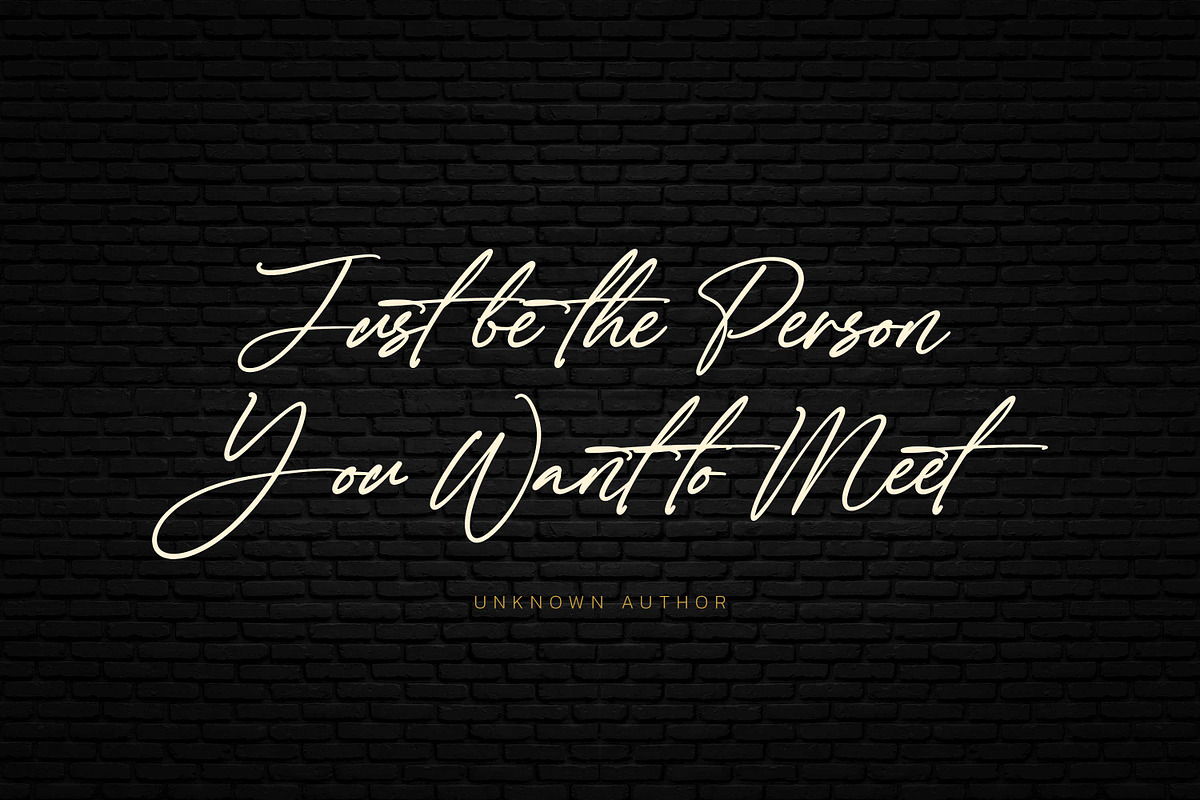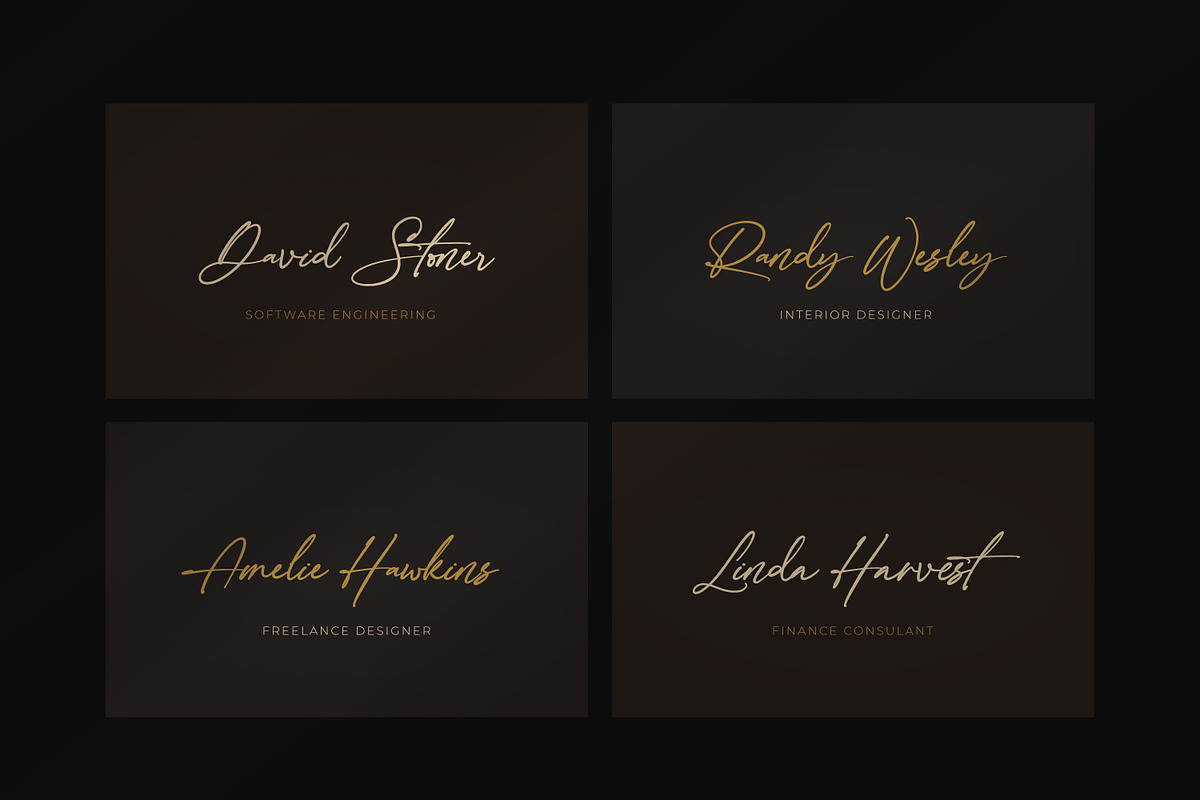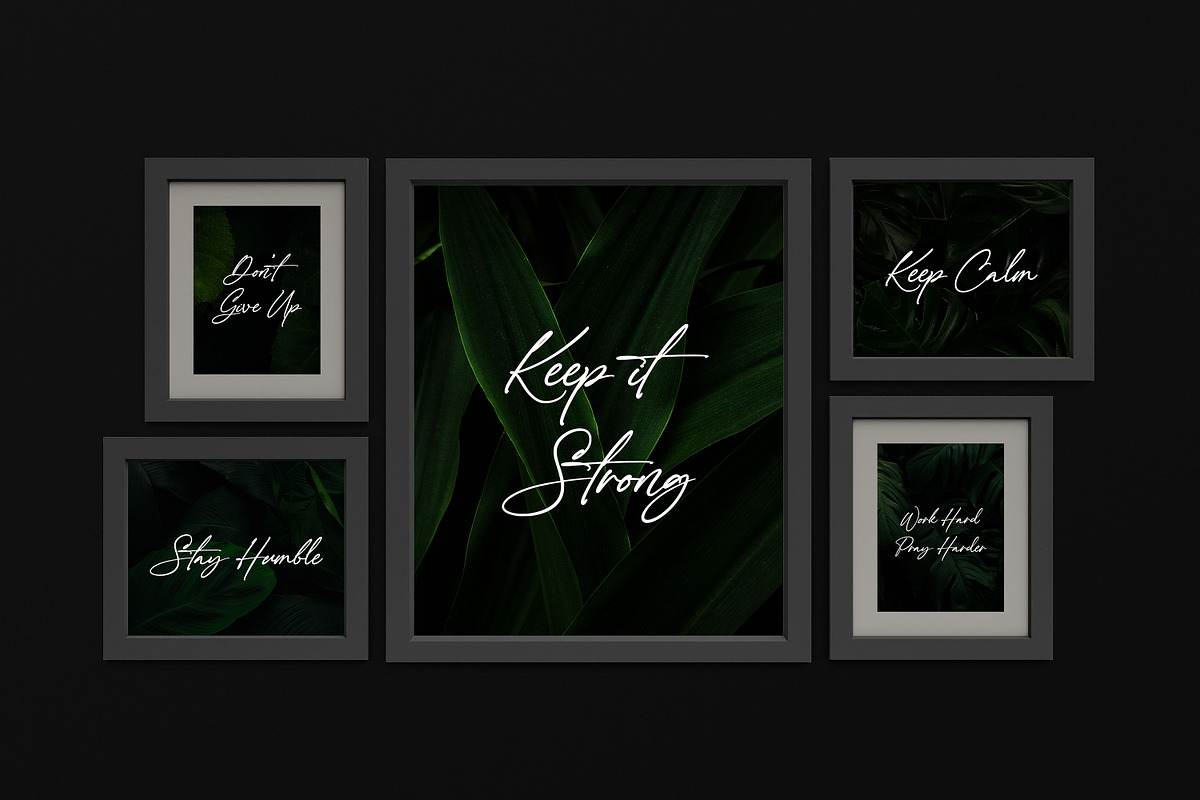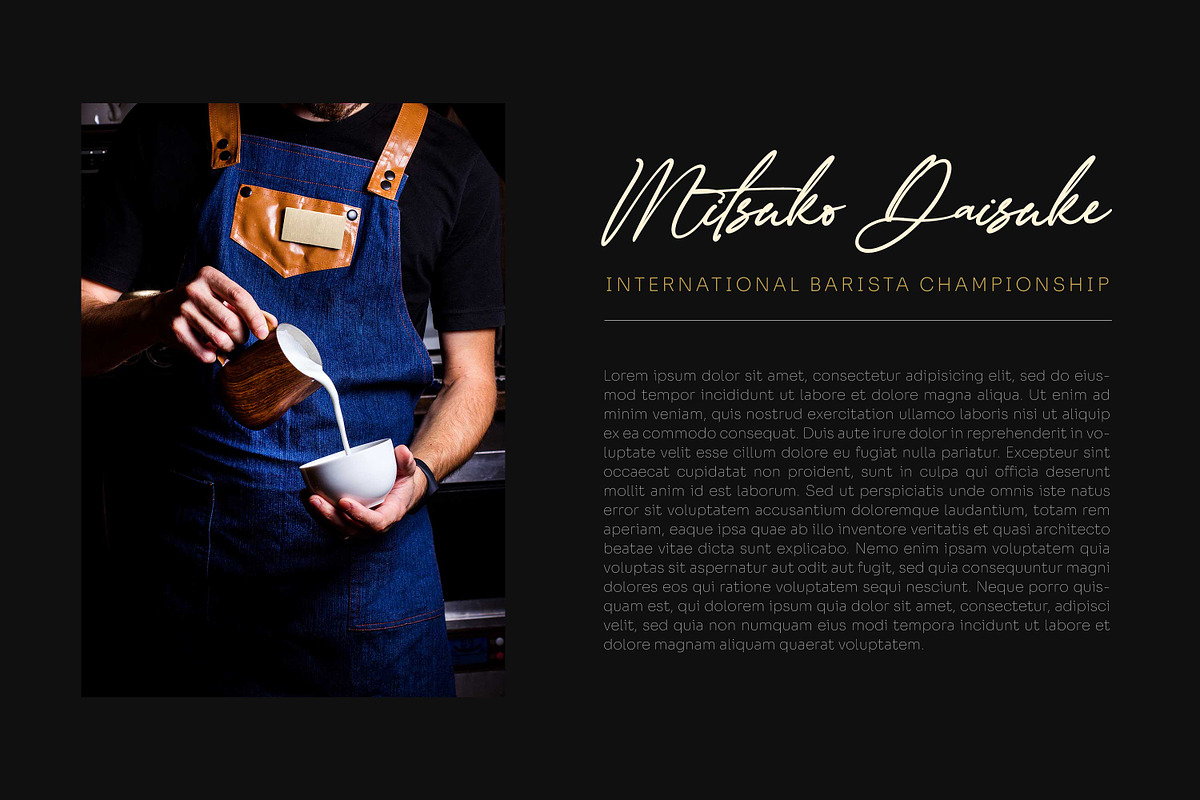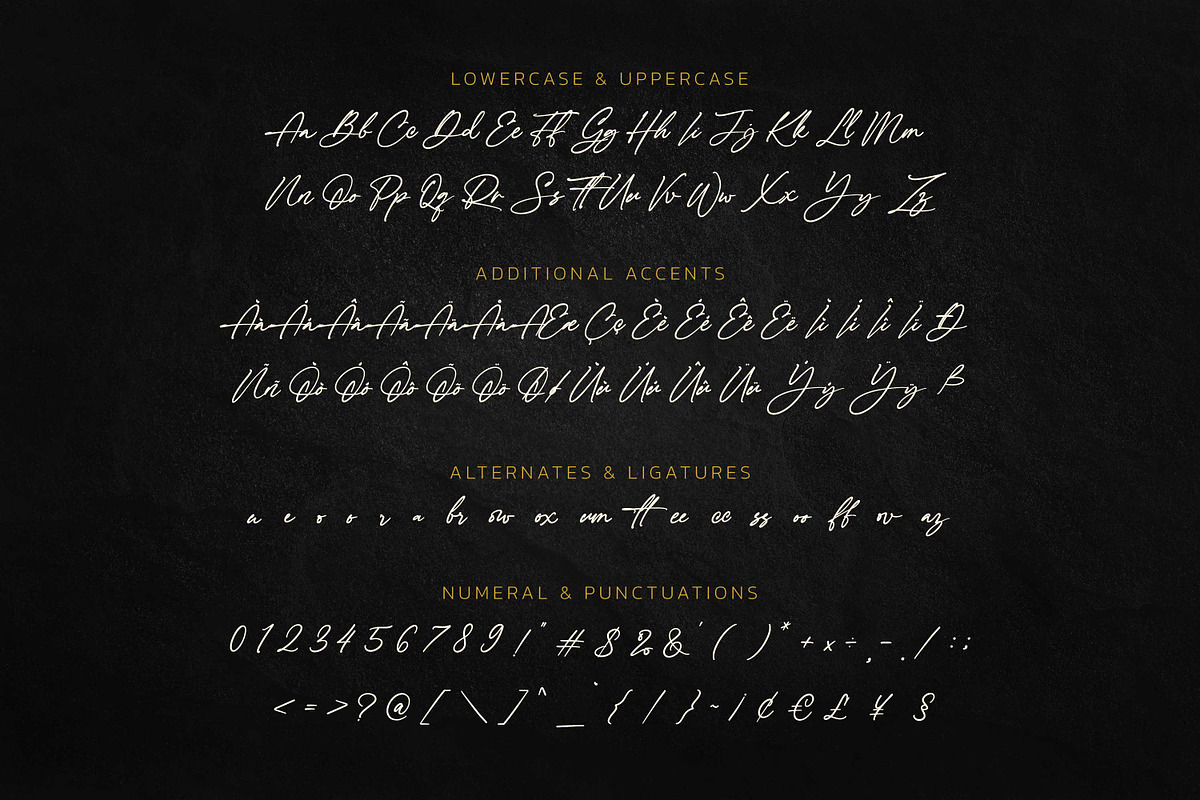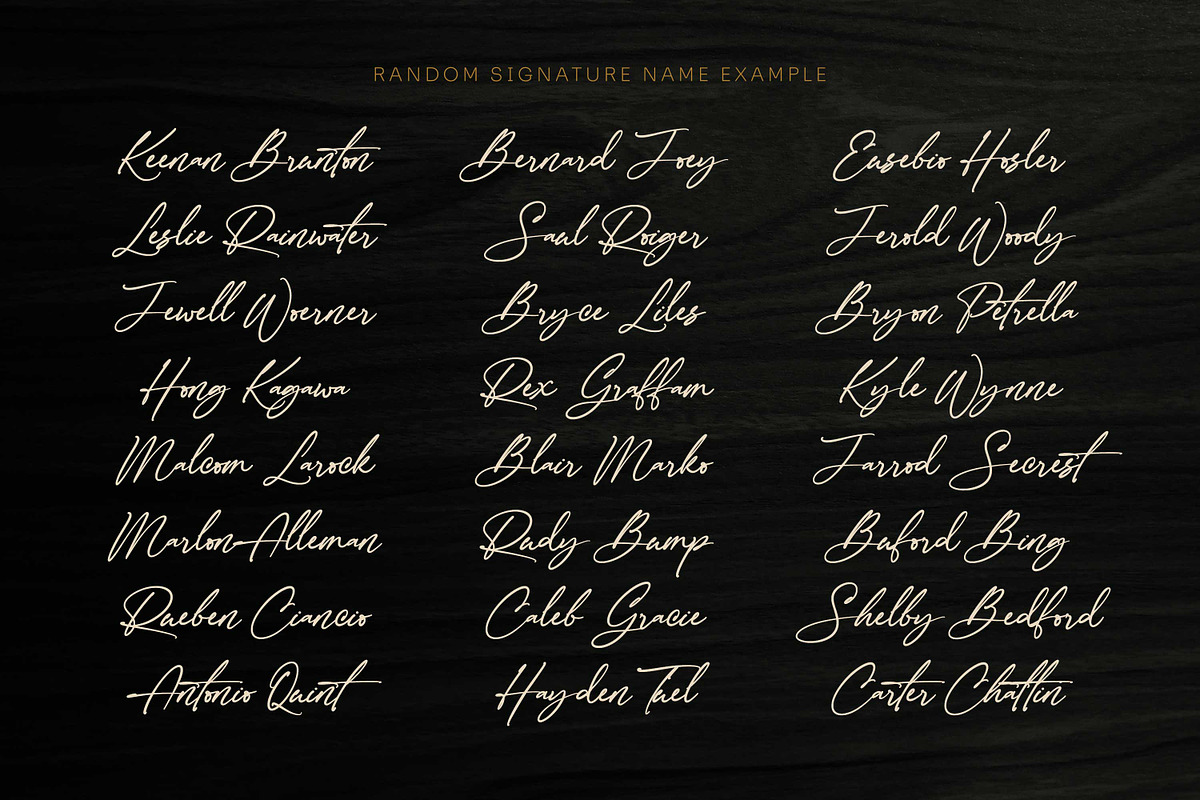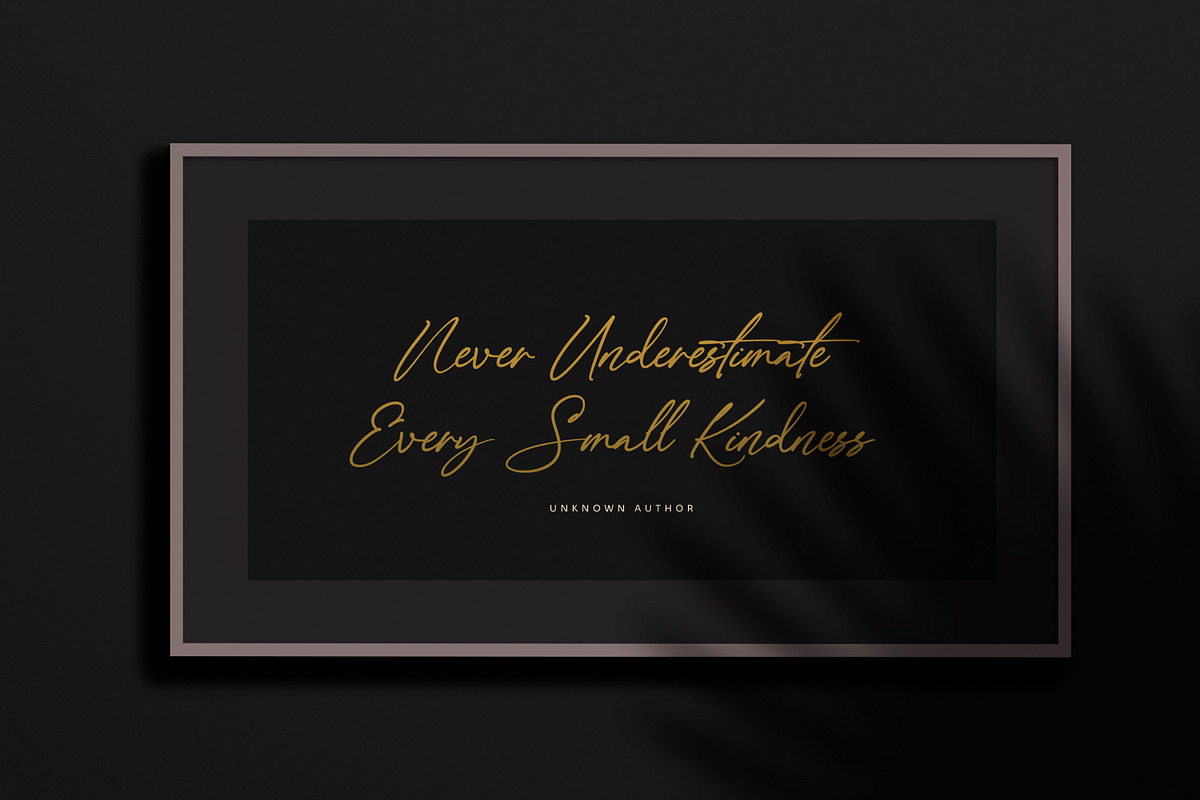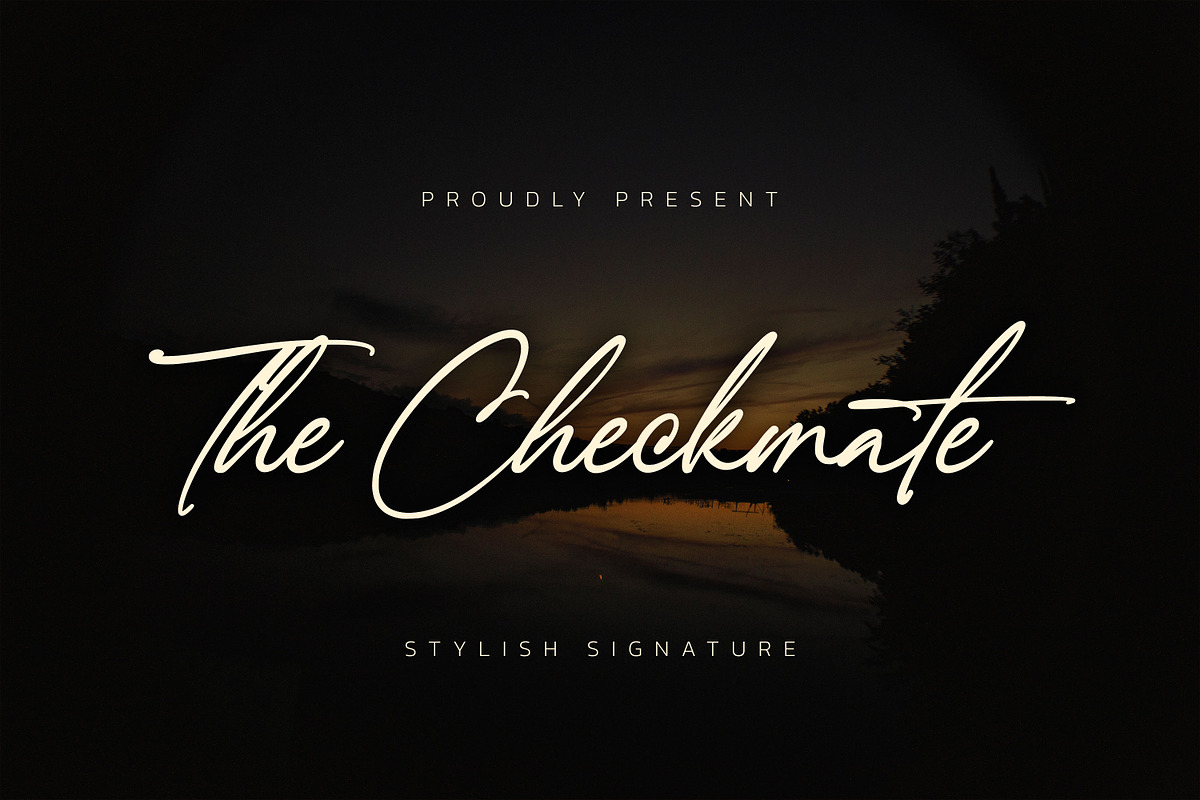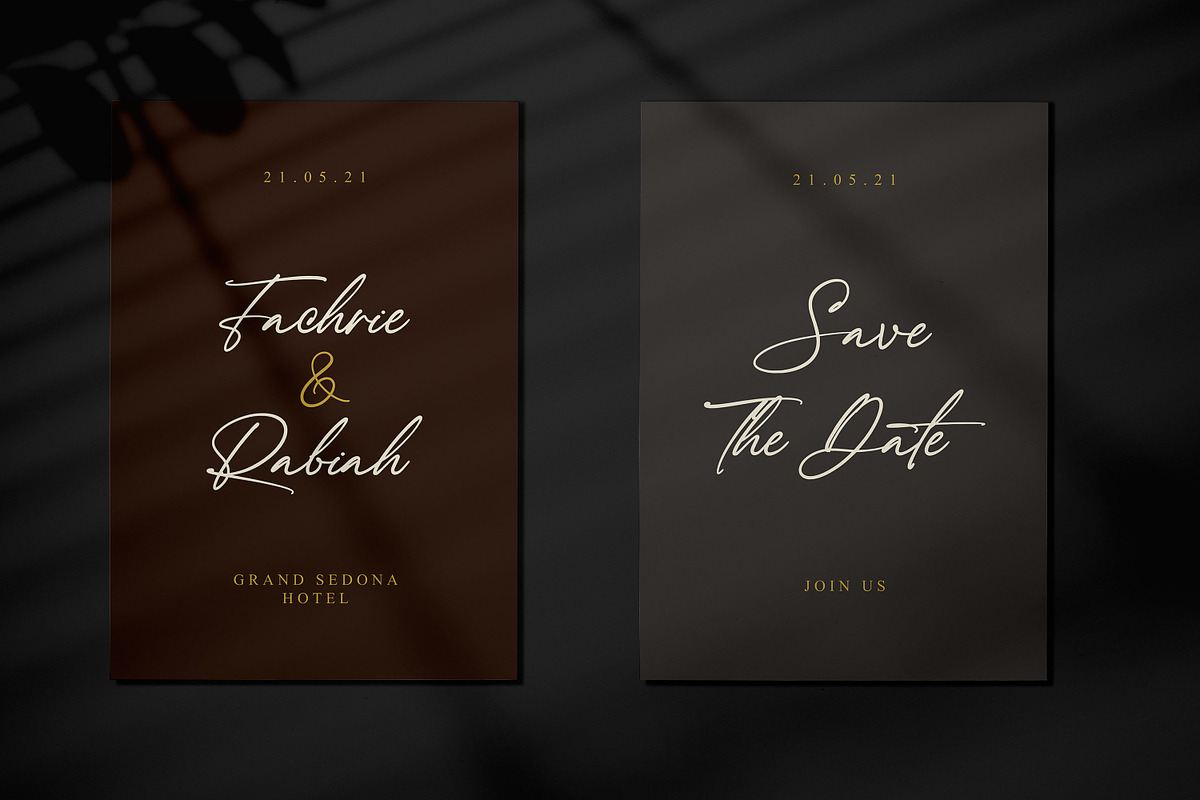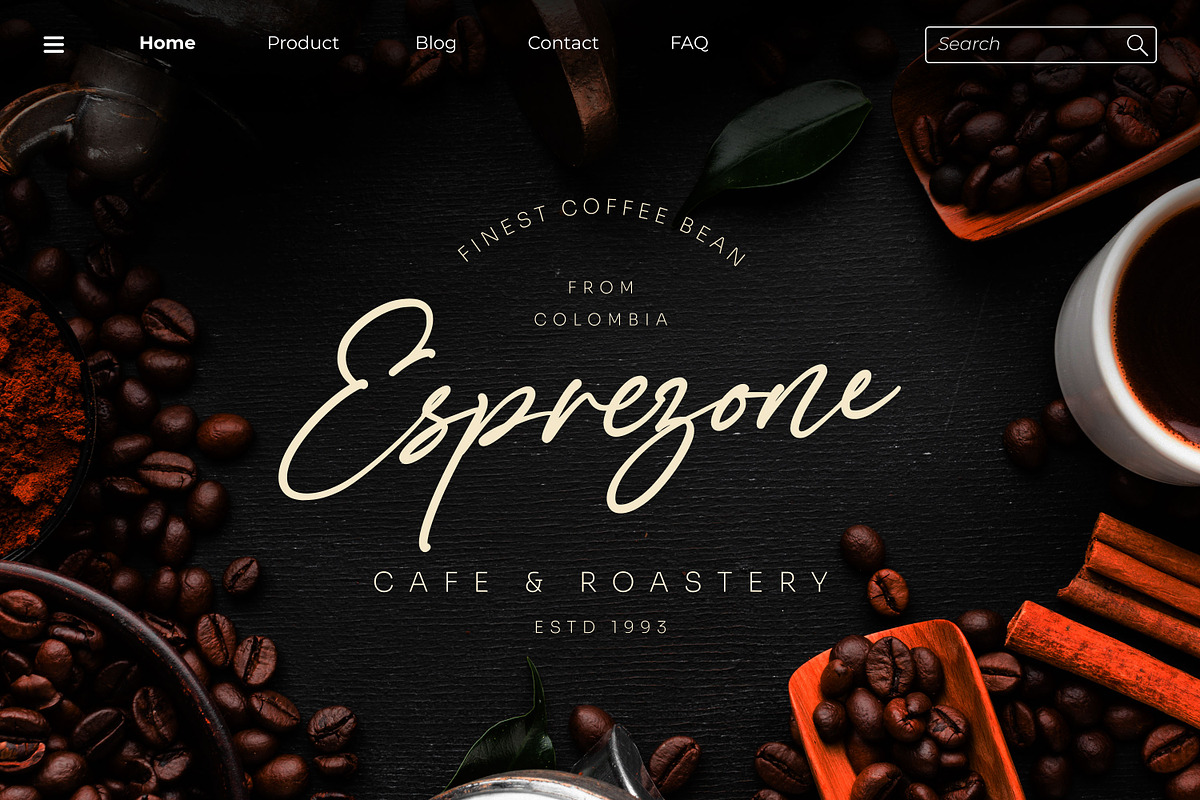
Sale!The Checkmate-Stylish Signature
Introducing The Checkmate - Stylish Signature is a Quality script that is written casually and quickly. Letters are made with Sign on paper. Then scanned and carefully drawn into vector format.
The Checkmate is perfect for homeware designs,branding projects, Logo, design, Quotes, Product packaging, Photography, Watermark
- Alternate glyphs